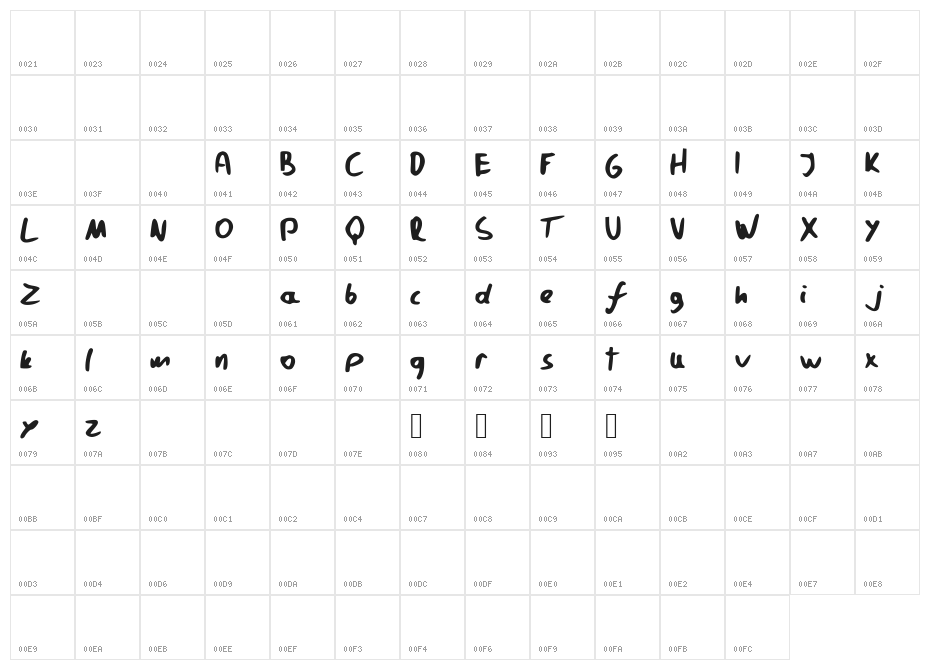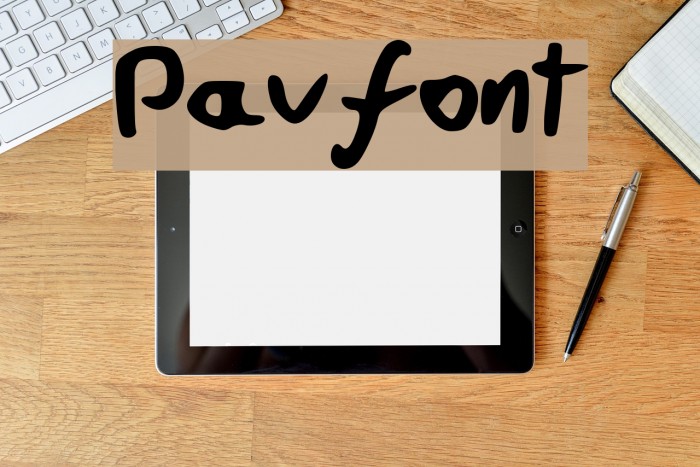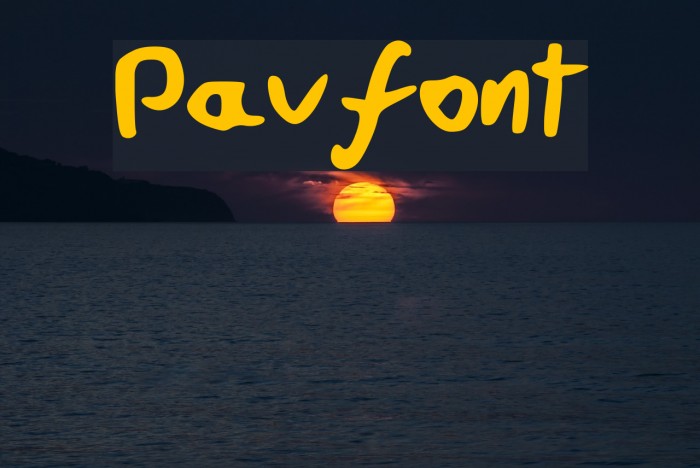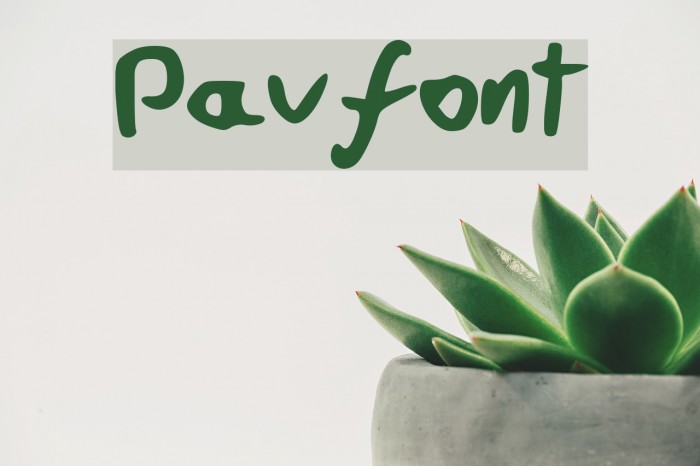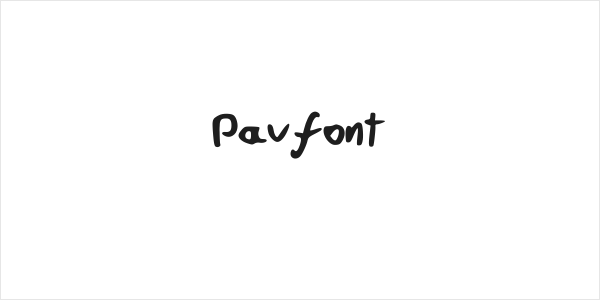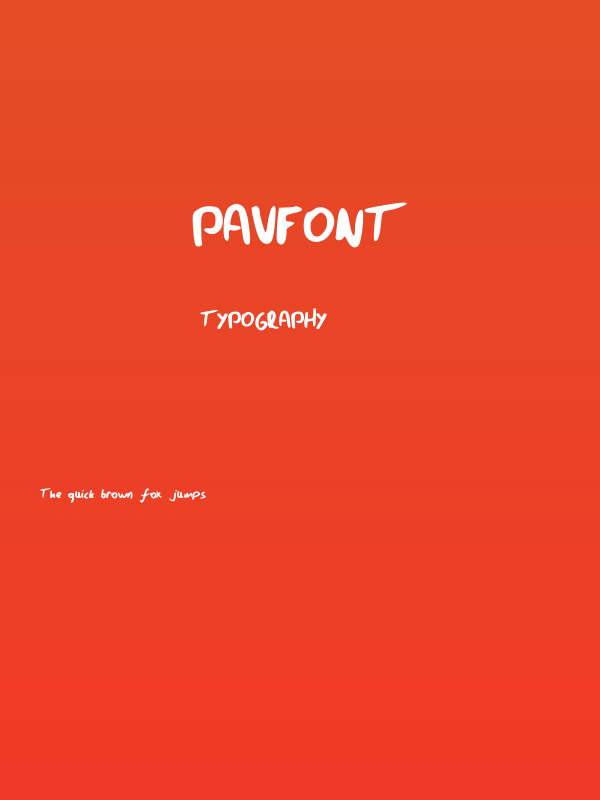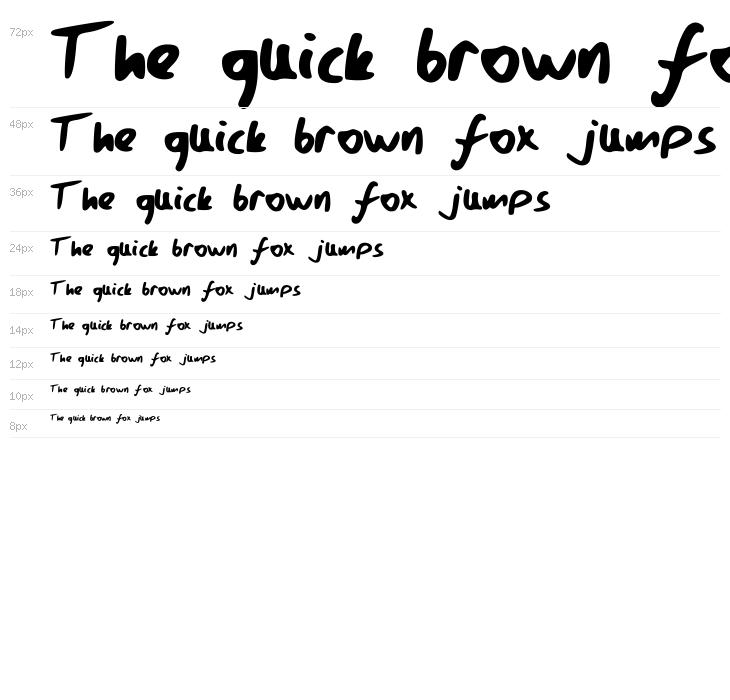
Pavfont Font
Pavfont Description
This font features a playful and informal handwritten style, characterized by its bold and rounded letterforms. The strokes are thick and consistent, giving it a strong presence on the page. The letters have a casual, almost doodle-like appearance, with slight variations in each character that add to its charm. The uppercase and lowercase letters maintain a uniform weight, while the numbers and special characters follow the same playful design. This font is ideal for projects that require a personal touch or a fun, relaxed vibe.
| Proposed Projects | Ideal for greeting cards, children's books, playful branding, and social media graphics. |